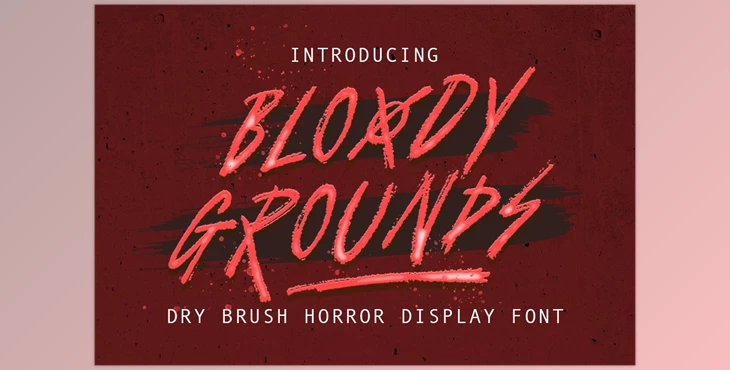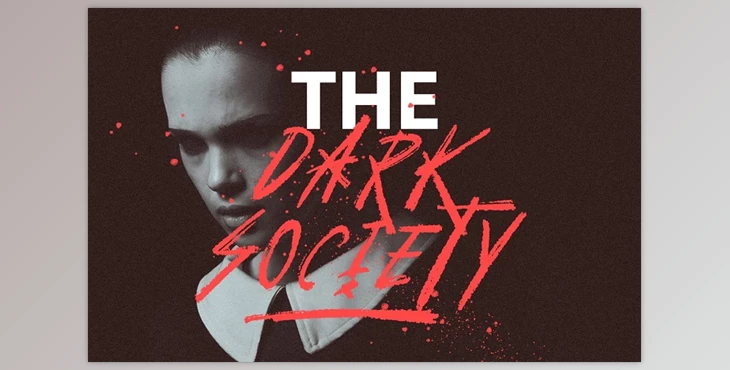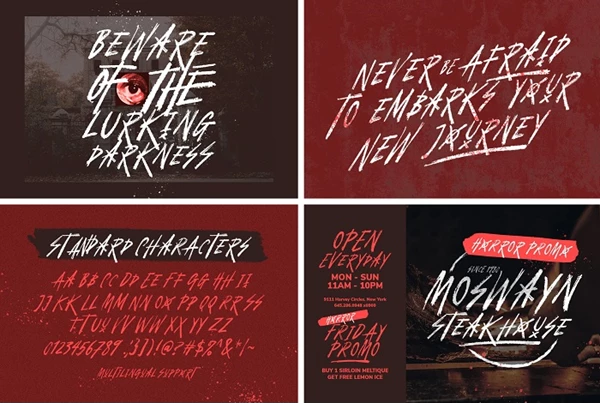
Bloody Grounds Font embodies the essence of hand-drawn artistry with its textured dry brush style. Versatile across print and digital mediums, it enriches designs with an authentic, organic vibe. Its freestyle display injects projects with character and uniqueness, catering to those in search of distinctiveness.
Complete with uppercase and lowercase letters, numerals, punctuation, and multilingual alternates, it offers ample design flexibility.
Engineered with PUA encoding for accessibility, Bloody Grounds Font ensures comprehensive language support and typographic versatility, empowering diverse expressions.